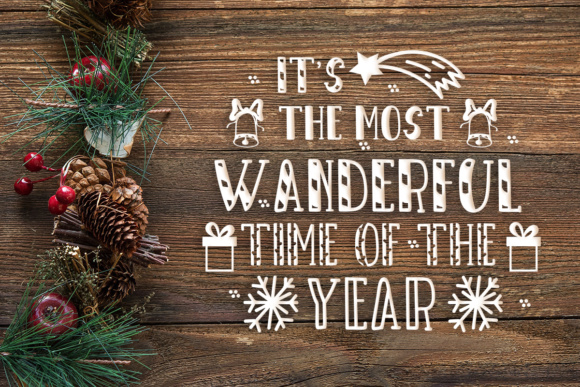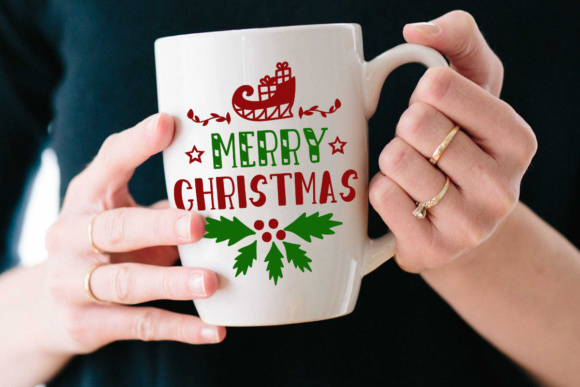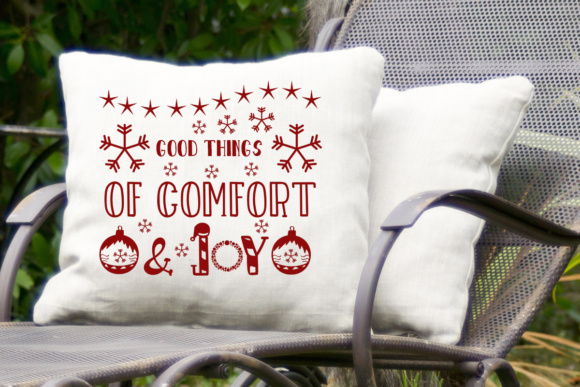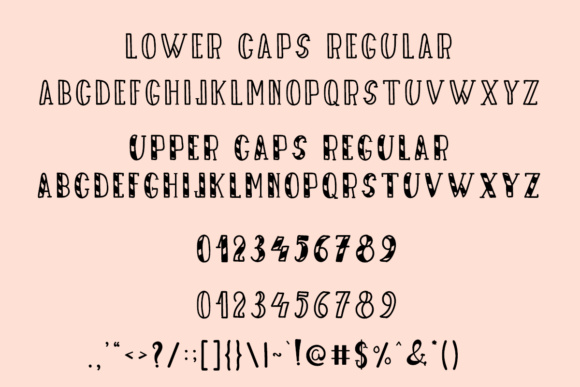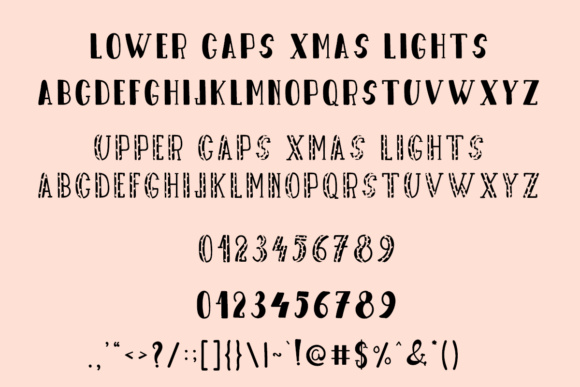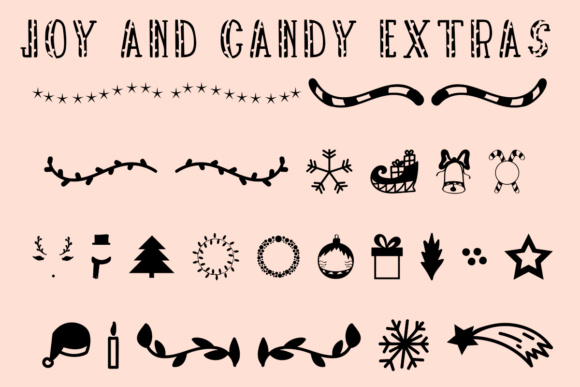
Introduction to Joy and Candy Font
As a designer, there’s nothing quite like the rush of creativity that comes with a new project. The blank page stares back at you, begging for inspiration. And then, like a spark of magic, you stumble upon the perfect font. For me, that moment happened when I discovered the enchanting Joy and Candy Font. This delightful Christmas-themed font is a treasure trove of creative possibilities, and I’m excited to share its secrets with you.
With its three unique fonts – Joy and Candy Regular, Joy and Candy Xmas Lights, and Joy and Candy Extra – this design resource is a game-changer for any project that needs a touch of festive flair. Whether you’re working on a holiday card, a social media campaign, or a children’s book, Joy and Candy Font is the perfect companion to help you bring your vision to life.
Key Features of Joy and Candy Font
- High-quality design resource ideal for creative projects, offering a unique and playful touch.
- Features a bold and colorful design, with intricate details and ornate flourishes, perfect for adding a touch of whimsy to any project.
Honest Review: Joy and Candy Font
I recently had the opportunity to work with the Joy and Candy Font, and I must say it’s a fantastic addition to any design resource library. The high quality of this font is immediately apparent, with its playful and whimsical design making it perfect for creative projects that require a touch of sweetness.
One of the standout features of the Joy and Candy Font is its versatility. It comes in a range of styles, from bold and bright to delicate and pastel, making it easy to find the perfect look for your design.
Here are some of the things that work well with the Joy and Candy Font:
- ✨ Wide range of styles and weights
- ✨ High quality and crisp typography
- ✨ Perfect for creative projects, such as food blogs, children’s books, and more
- ⚠️ Limited support for non-Latin languages
- ⚠️ Not suitable for formal or professional designs
Tips for Getting the Most Out of Joy and Candy Font
Common Use Cases for Joy and Candy Font
Common use cases for Joy and Candy Font include party invitations, social media graphics, and product packaging design. The font’s playful and whimsical style makes it ideal for any creative project that requires a touch of fun and personality.